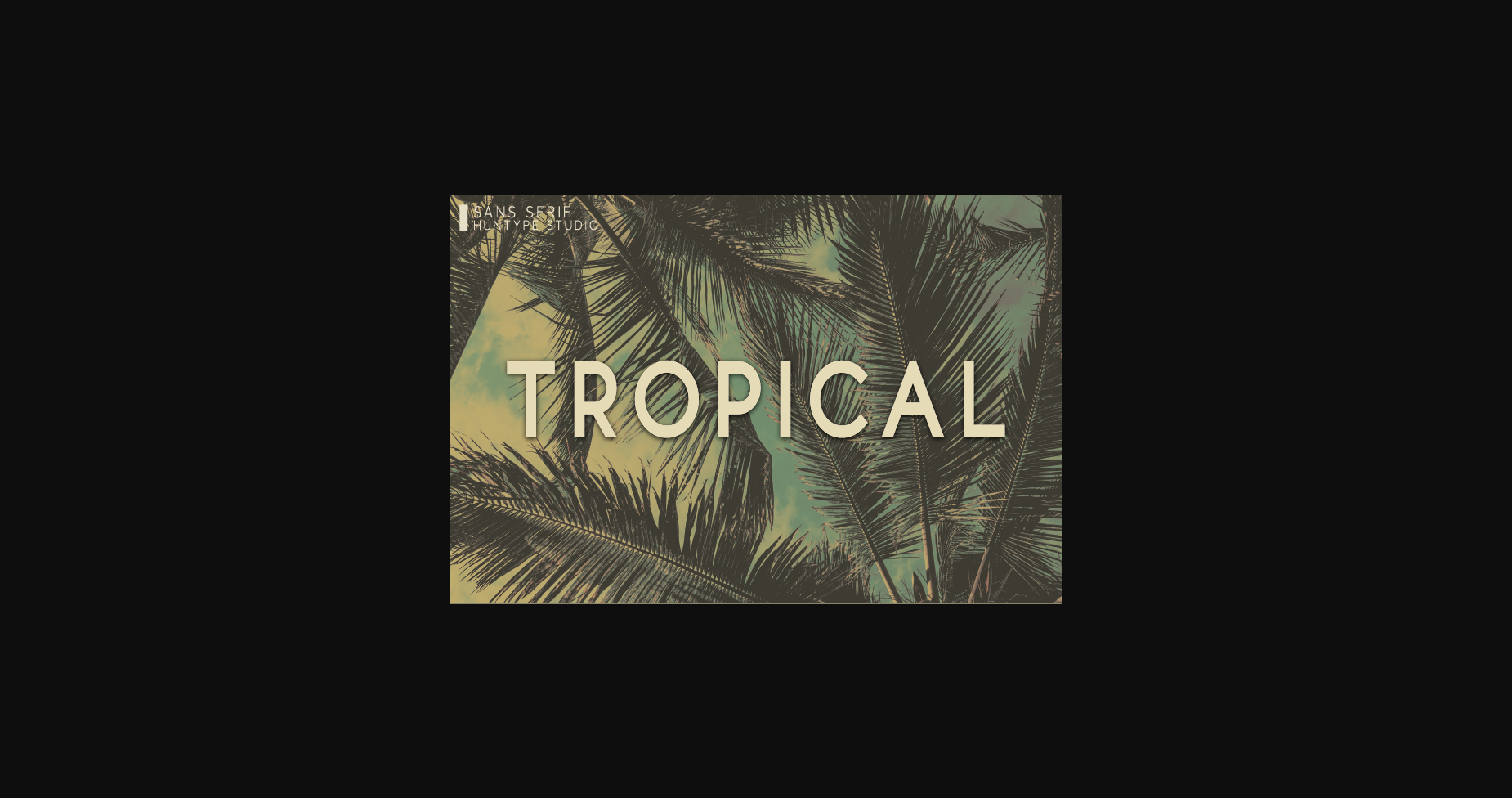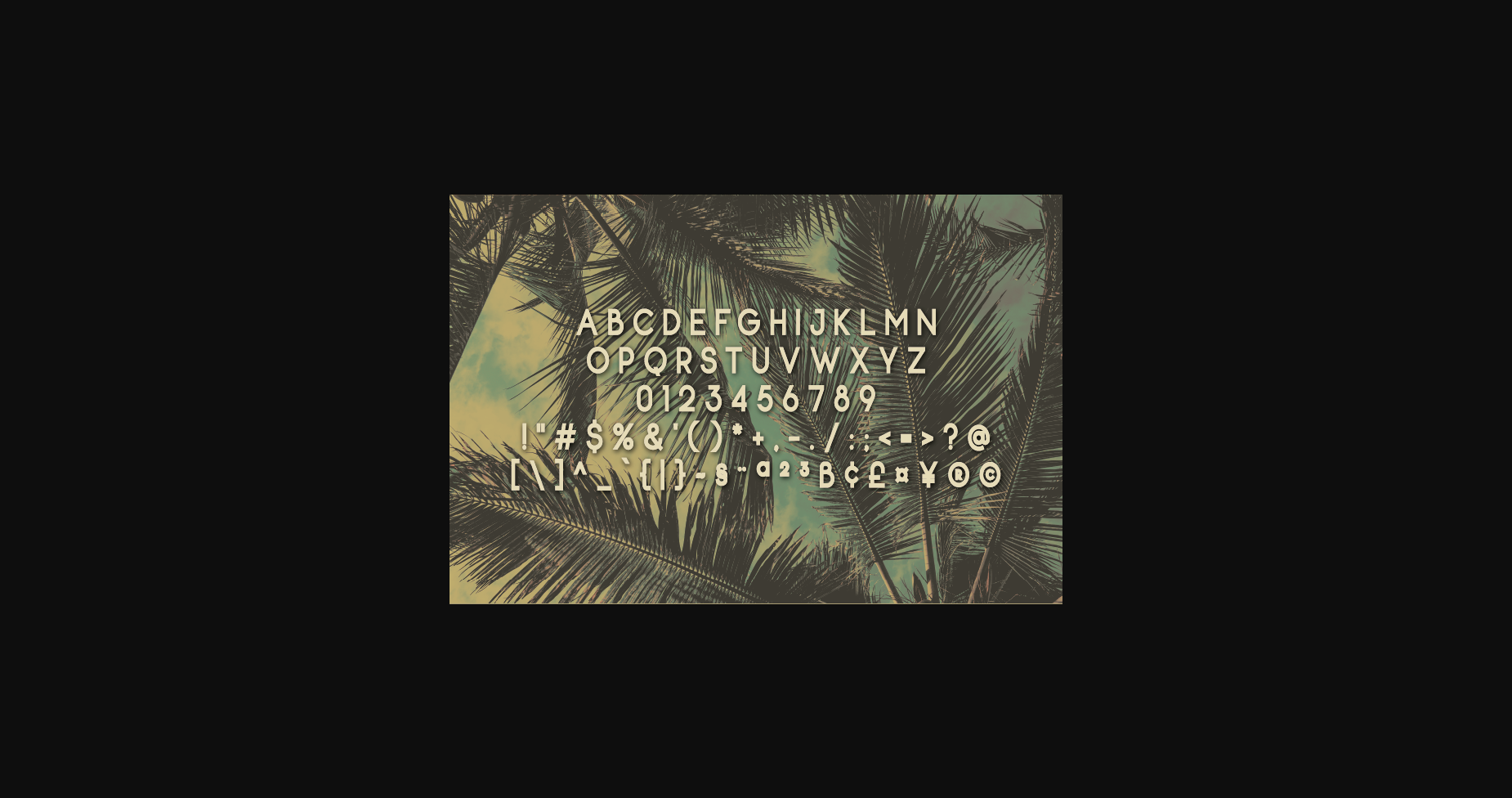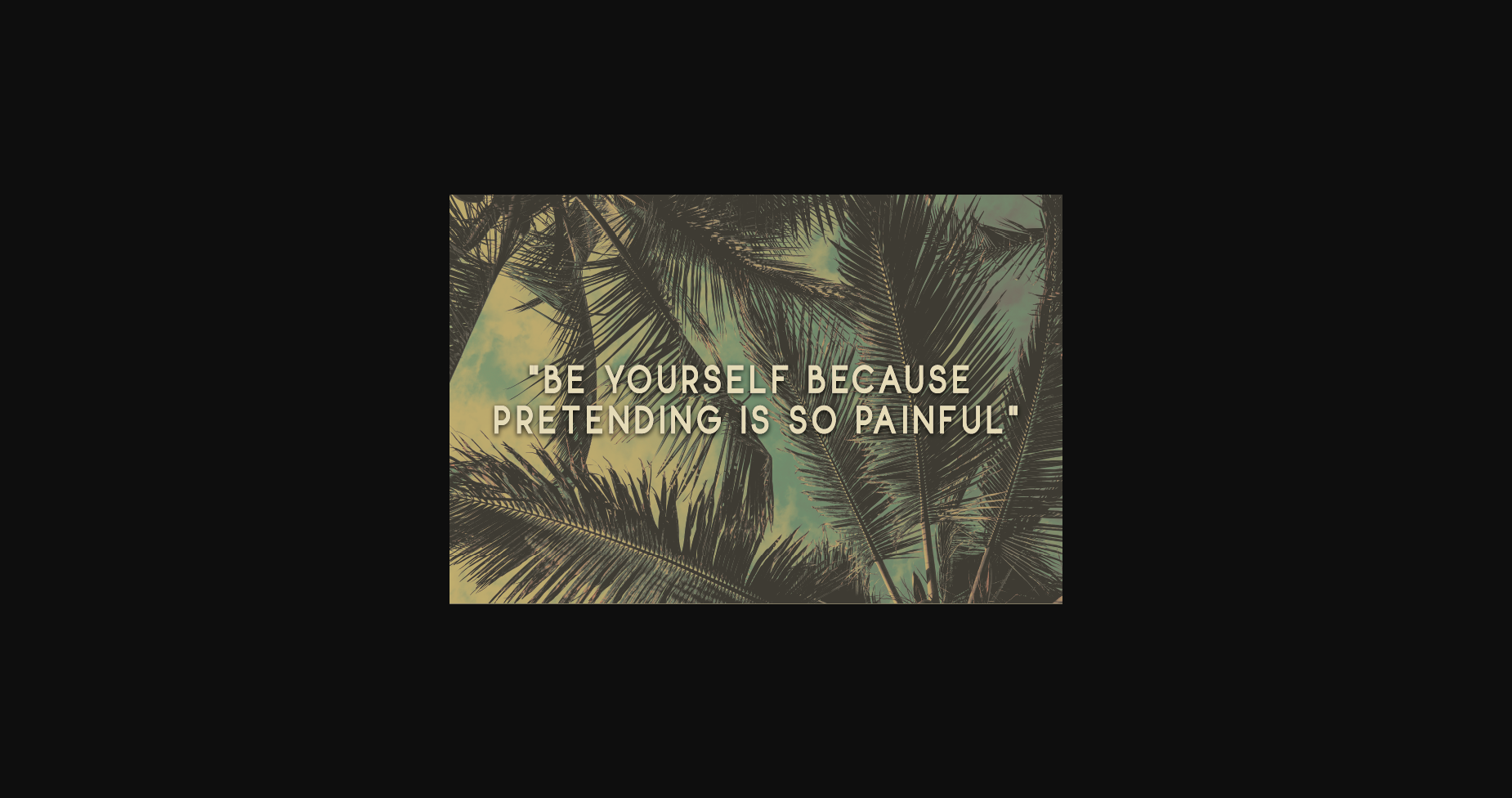
Tropical Font
About Tropical Font
Tropical is an all-caps sans serif font that looks great in any context. With smooth and clean lines and just a touch of contrast, this font works beautifully for logos, branding, and web headings.